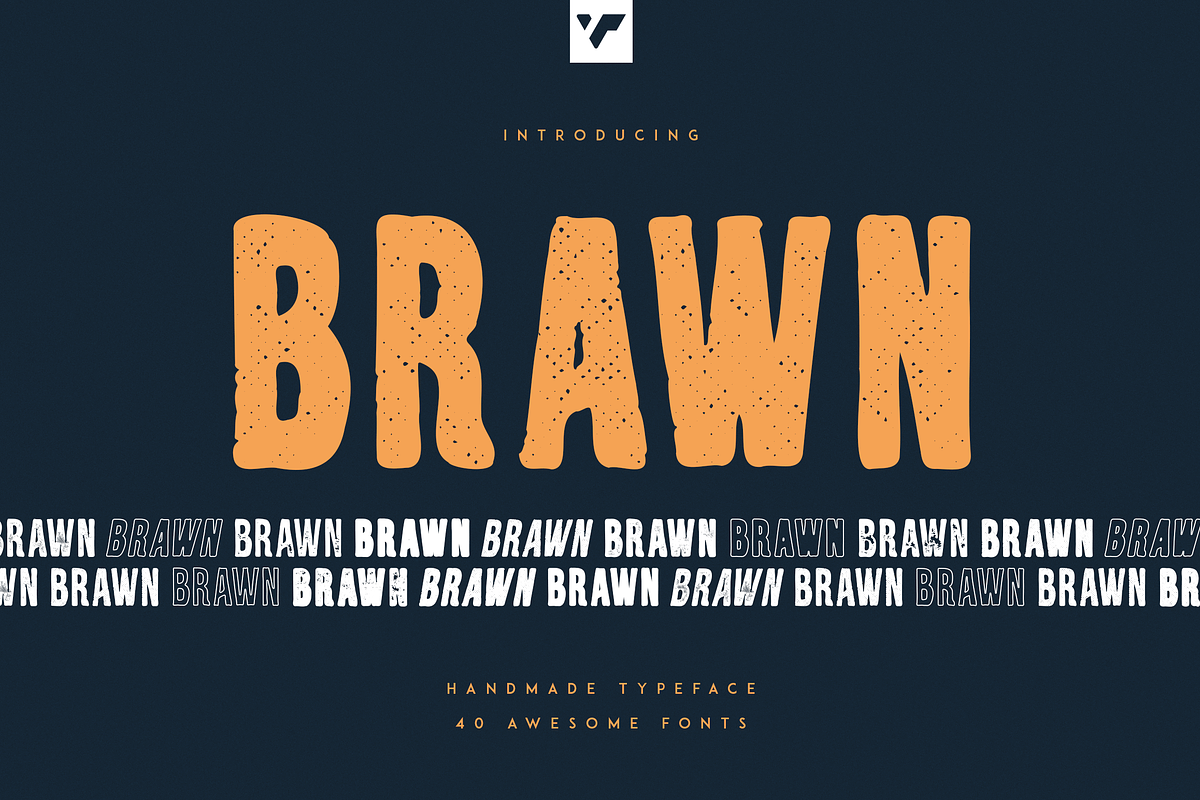
Brawn Handwritten typeface, 40 fonts Free Download
Brawn Handwritten Typeface, 40 Fonts Free Download is a comprehensive font bundle featuring an expressive and organic handwritten style. With 40 unique fonts included, this collection offers unmatched versatility—perfect for branding, logos, social media content, packaging, and personal projects that need a warm, hand-crafted touch.
Each typeface in the Brawn bundle delivers its own personality, ranging from casual and playful to elegant and refined. Whether you're designing quotes, wedding stationery, or creative ads, Brawn has the perfect variation to fit your tone.